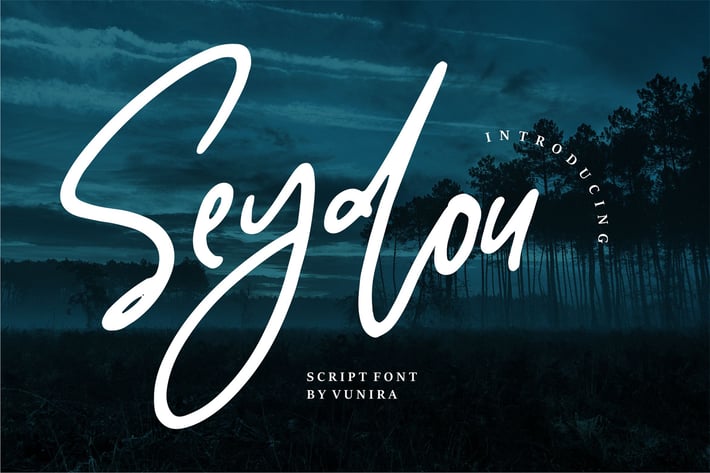
Seydou | Script Font
Seydou | Script Font with a calligraphy style, So beautiful on invitation like greeting cards, branding materials, business cards, quotes, posters, and more!